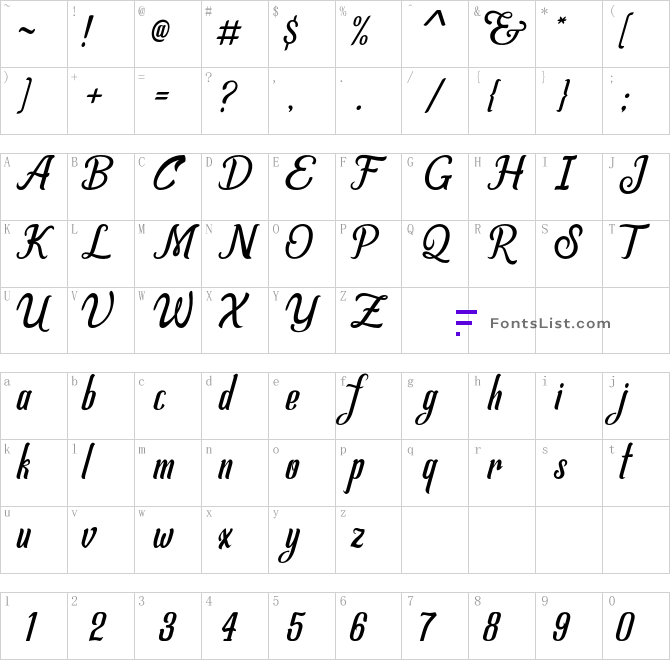
- Font Name:Allema
Allema.otf is a very beautiful artistic font, Allema.otf is widely used in the design and printing of various books and pictures,Allema.otf has a strong visual impact,Allema.otf is a commonly used font in newspapers, magazines and books, and is used in posters, e-commerce Poster design, store design, logo design, font design and other fields.Allema.